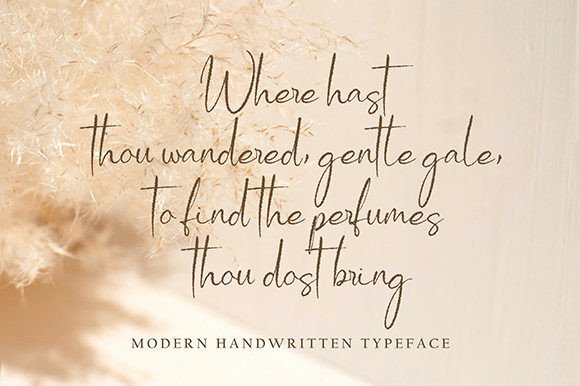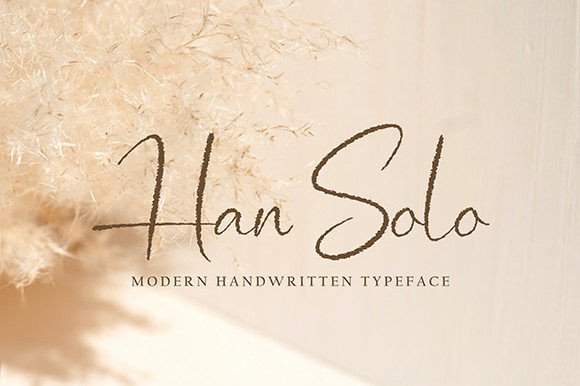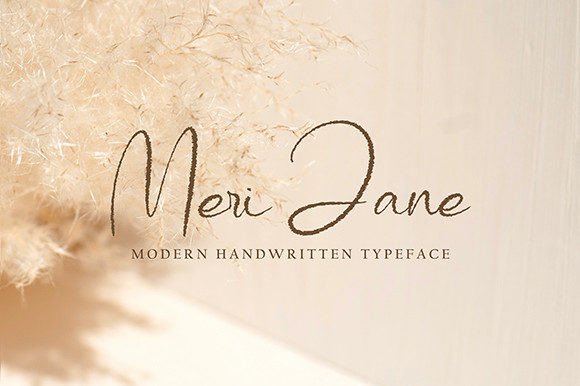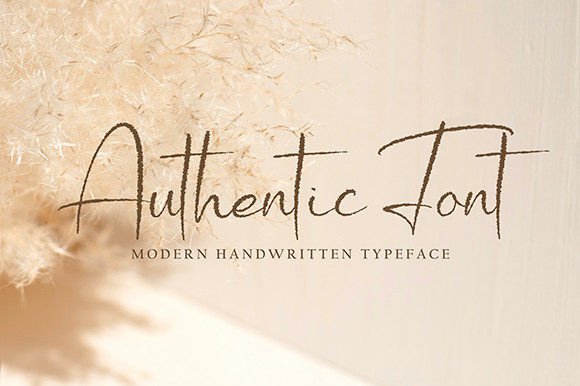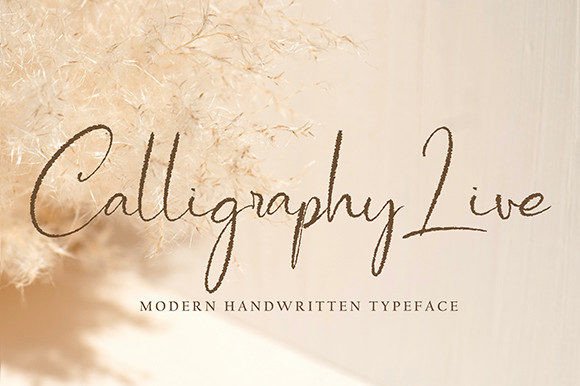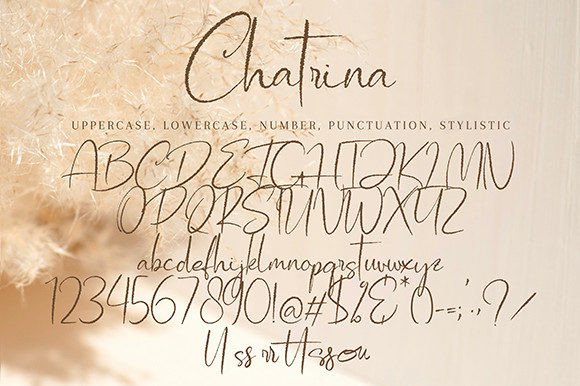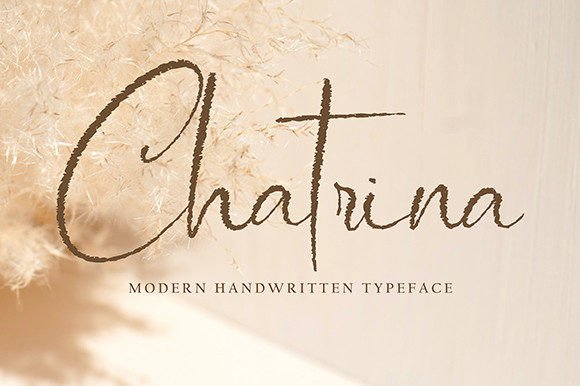
Discover the Elegance of Chatrina Font: A Delicate Handwritten Typeface
In the world of typography, few fonts capture the essence of elegance and sophistication as beautifully as Chatrina. This delicate, elegant, and flowing handwritten font has been making waves among designers and crafters alike, and for good reason. With its beautiful and well-balanced characters, Chatrina effortlessly matches a wide pool of designs, making it a versatile and sought-after typeface.
The Characteristics of Chatrina Font
Chatrina font is a masterpiece of handwritten typography, boasting a range of characteristics that set it apart from other fonts. Its delicate and flowing lines evoke a sense of refinement and luxury, making it perfect for designs that require a touch of sophistication. The font’s elegant appearance is characterized by:
- Beautifully crafted letters: Each letter in the Chatrina font is carefully crafted to ensure a beautiful and harmonious appearance. The font features a range of letterforms, from the flowing curves of the lowercase letters to the stately elegance of the uppercase letters.
- Well-balanced characters: The characters in Chatrina are meticulously balanced to create a sense of visual harmony. This balance ensures that the font remains legible and aesthetically pleasing, even at smaller sizes.
- Flowing connections: The connections between letters in Chatrina are smooth and flowing, creating a sense of movement and fluidity. This feature makes the font particularly well-suited for designs that require a sense of dynamism and energy.
Versatility of Chatrina Font
One of the key advantages of Chatrina font is its versatility. Its elegant and refined appearance makes it suitable for a wide range of design applications, including:
- Wedding and event designs: Chatrina’s sophisticated appearance makes it perfect for wedding invitations, event branding, and other designs that require a touch of luxury.
- Branding and packaging: The font’s elegant appearance makes it well-suited for branding and packaging designs that require a sense of refinement and sophistication.
- Stationery and paper goods: Chatrina’s beautiful and flowing lines make it perfect for stationery and paper goods, such as notebooks, journals, and greeting cards.
- Digital designs: The font’s legibility and aesthetic appeal make it suitable for digital designs, including website headers, social media graphics, and digital marketing materials.
Why Designers and Crafters Love Chatrina Font
Chatrina font has quickly become a favorite among designers and crafters, and for good reason. Here are just a few reasons why:
- High-quality design: The font’s high-quality design ensures that it looks great in a range of sizes and resolutions.
- Flexibility: Chatrina’s versatility makes it suitable for a wide range of design applications, from print to digital.
- Aesthetic appeal: The font’s elegant and refined appearance makes it a joy to work with, and its beautiful and flowing lines add a touch of sophistication to any design.
In conclusion, Chatrina font is a delicate, elegant, and flowing handwritten typeface that has captured the hearts of designers and crafters alike. Its beautiful and well-balanced characters, versatility, and aesthetic appeal make it a sought-after font for a wide range of design applications. Whether you’re working on a wedding invitation, branding design, or digital project, Chatrina font is sure to add a touch of sophistication and elegance to your work.